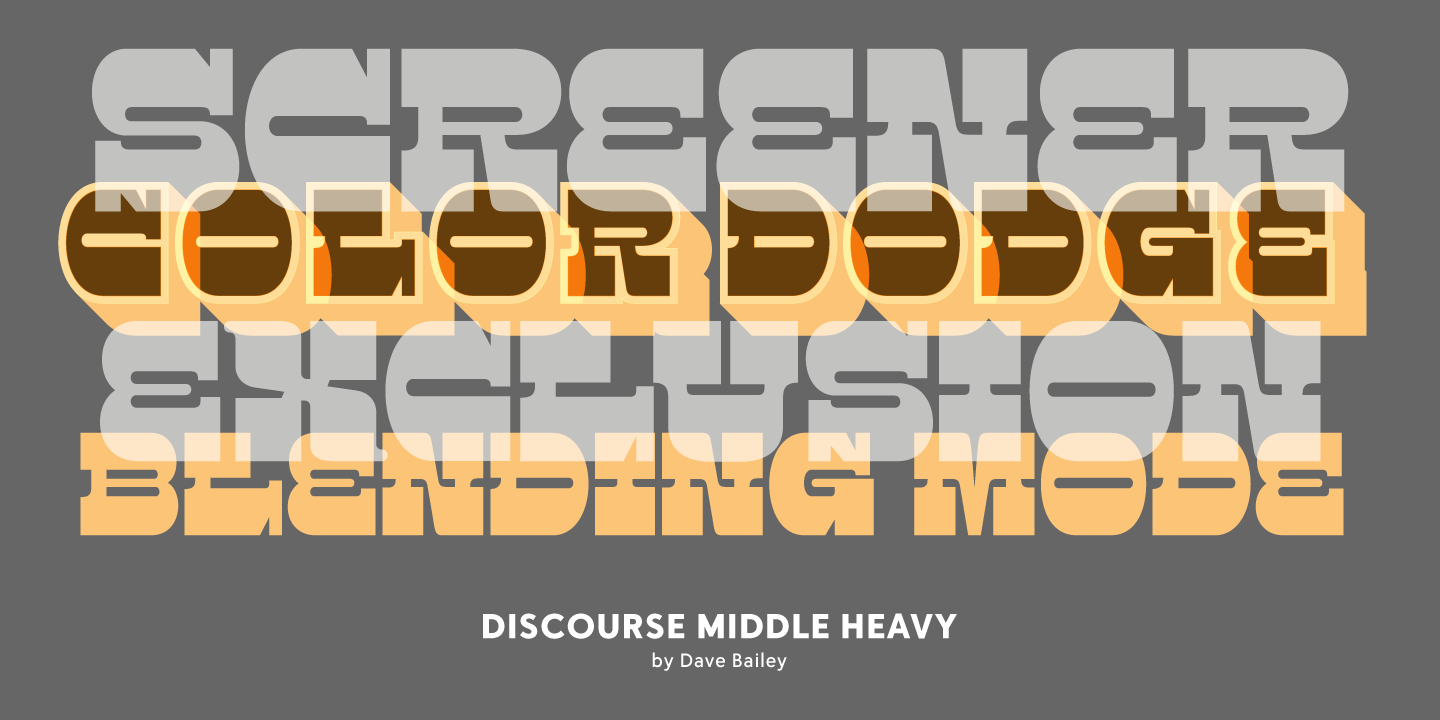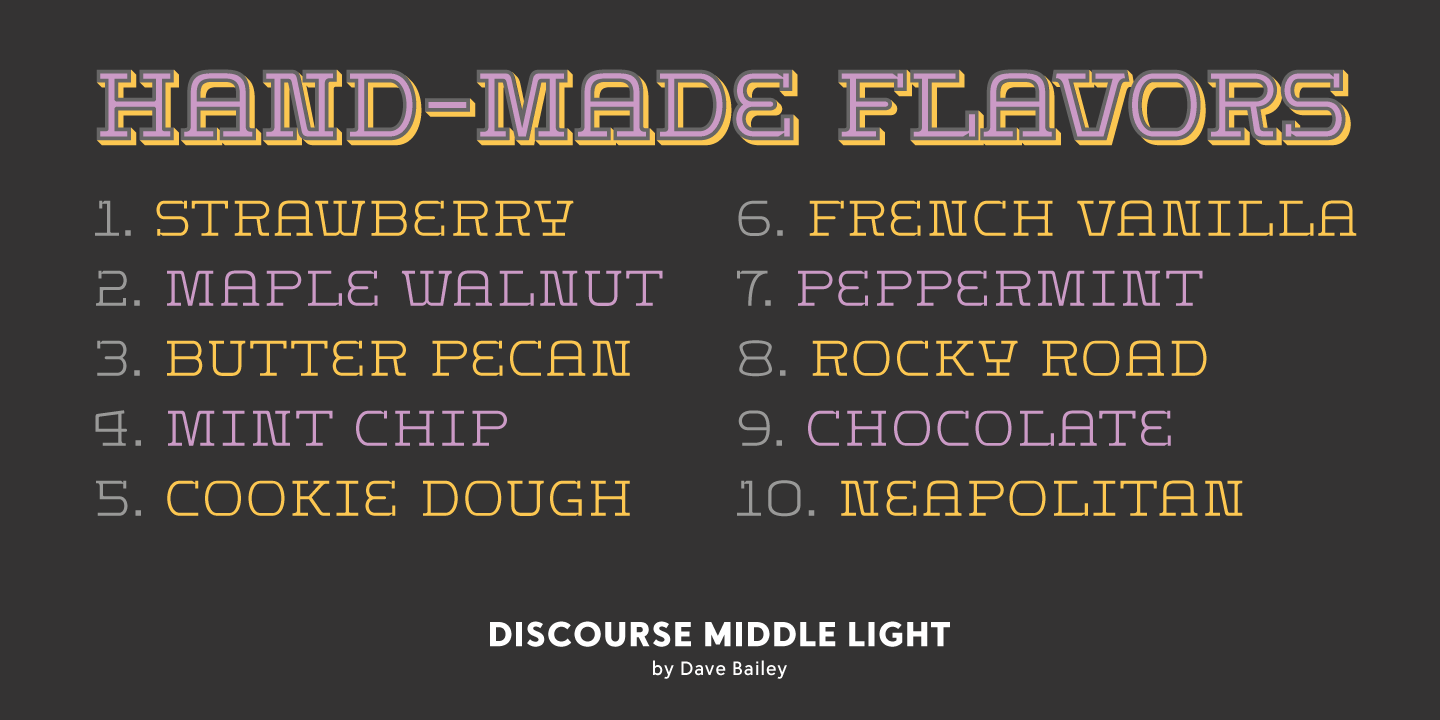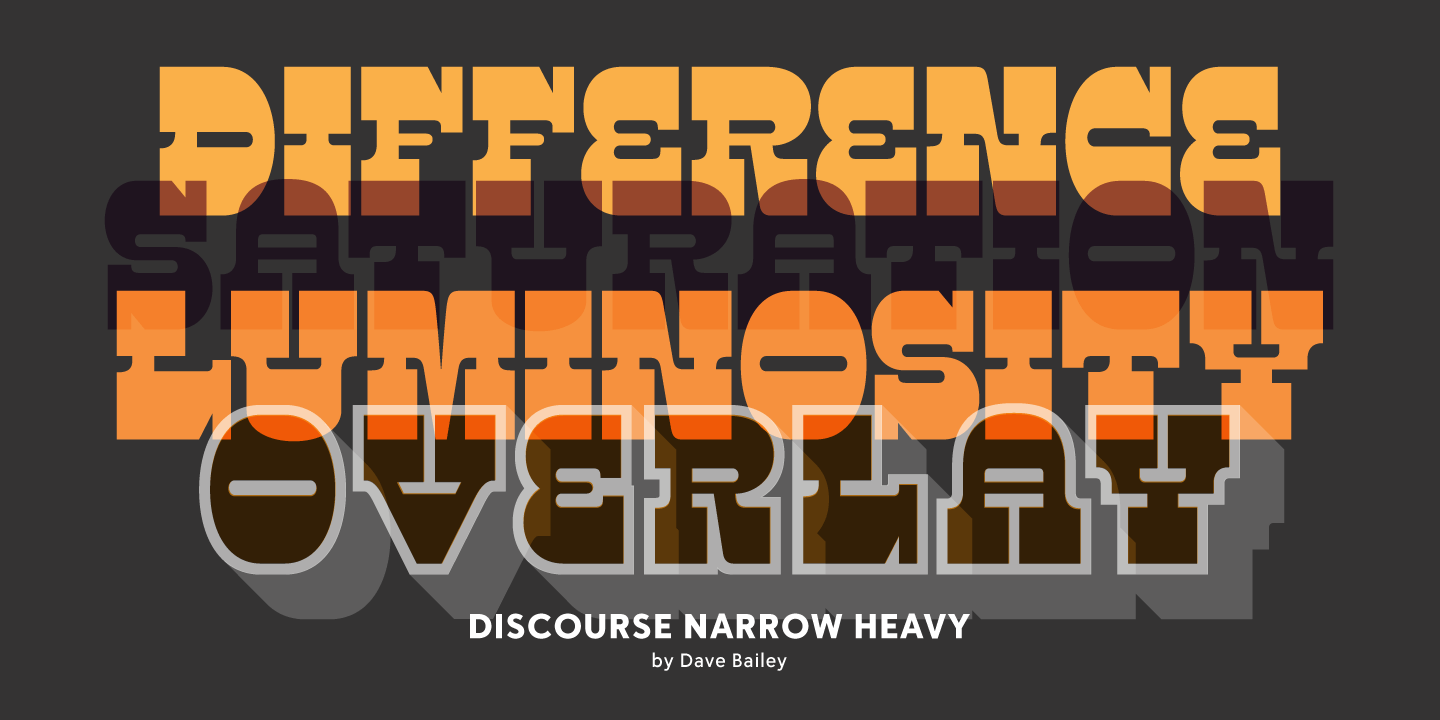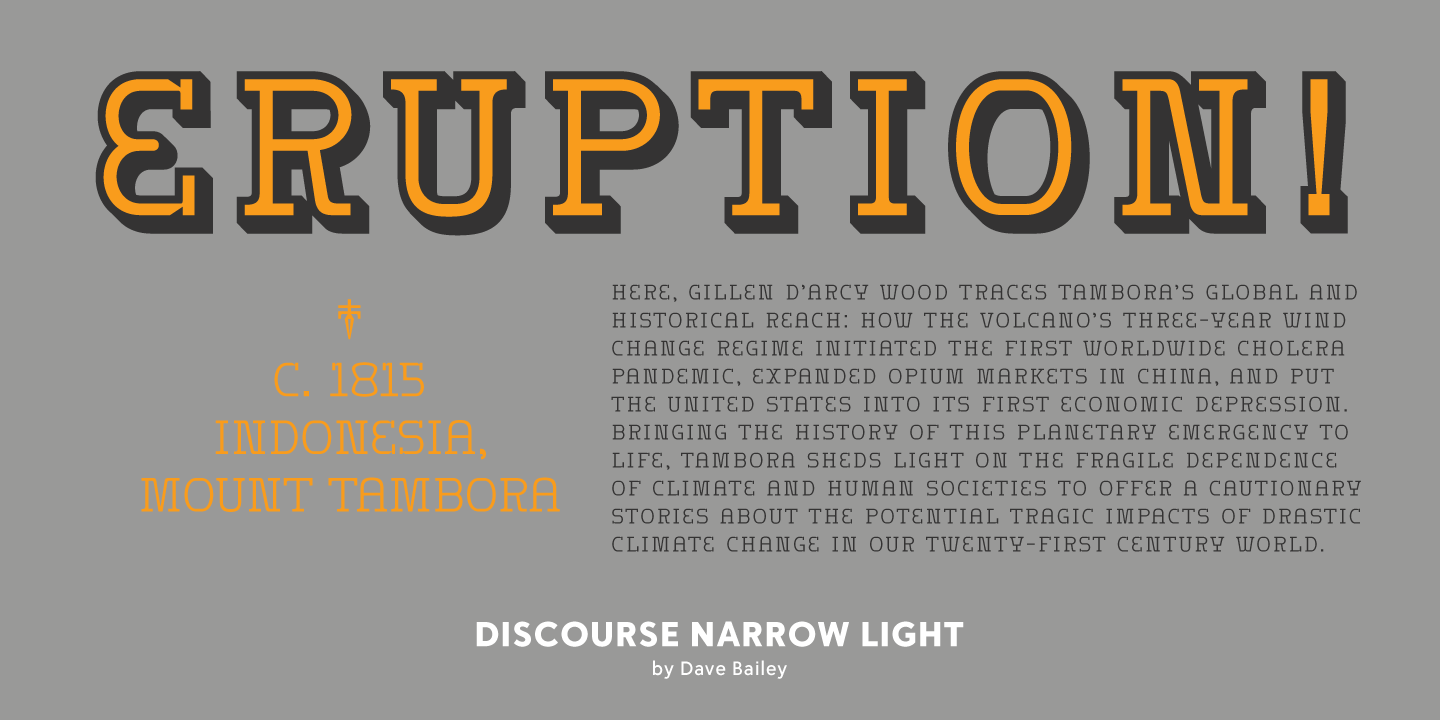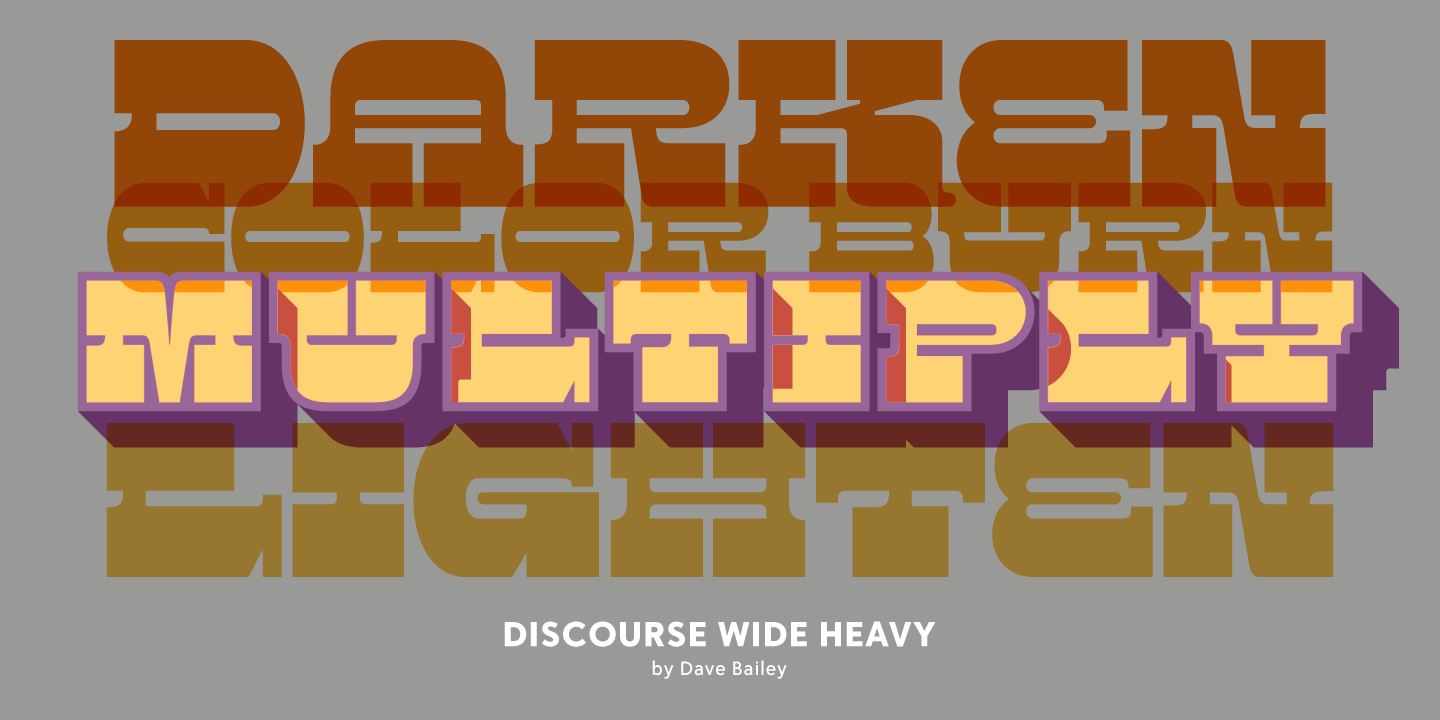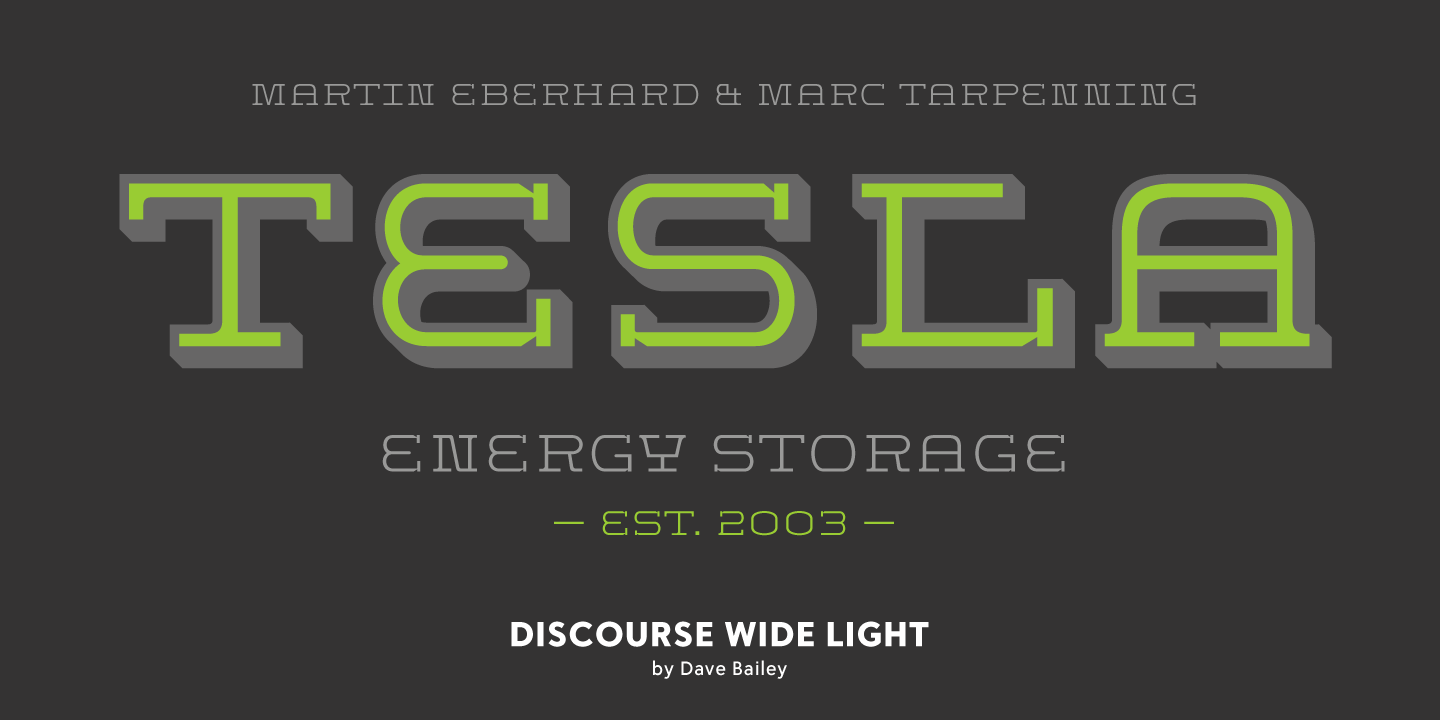
Discourse
Font Family by Delve Fonts
Buy NowDiscourse was first visualized when letterer and designer Dave Bailey heard a preview of the album ?Dust and Buried Bones: A Western Fantasy? by Opiate Eyes. The title alone evokes vivid imagery of gritty western films and the Oregon Trail. Although Discourse references classic reverse-contrast wood type associated with the era of the Wild West, it re-interprets conventional forms to be more unique and dis